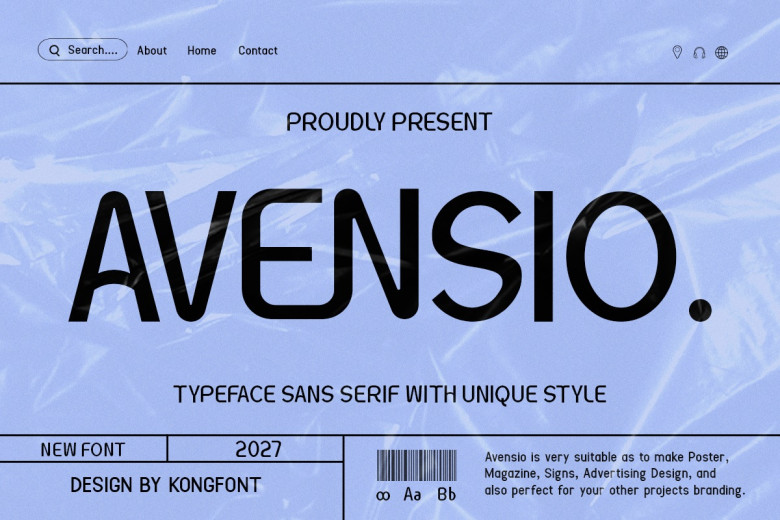
Avensio Font
Avensio is a Modern, Classy, Unique Sans Serif Font is new product that will come with great style as it follows the curvature variation as compared to the usual creation. This font is one of the fonts that you have options after an individual wants to use a sans serif font. Avensio Modern Classy Unique Sans Serif Font has the following feature: There is no tension in each type of letter. Unlike the final letter images, this font has a regular structure similar to the initial letter.
This font is also easily readable from the style. This font will appear clean if used with a large size font Webr. Avensio Modern Classy Unique Sans Serif Font can be rated very high for usability if it is applied to branding of a certain product. This font is suitable for creating advertising posters, logos, trademarks, or shop signs. This font can output a modern, simple look of the product alongside attract potential buyers. It makes this particular font suitable for use in magazines and books.
Avensio Sans Serif Font